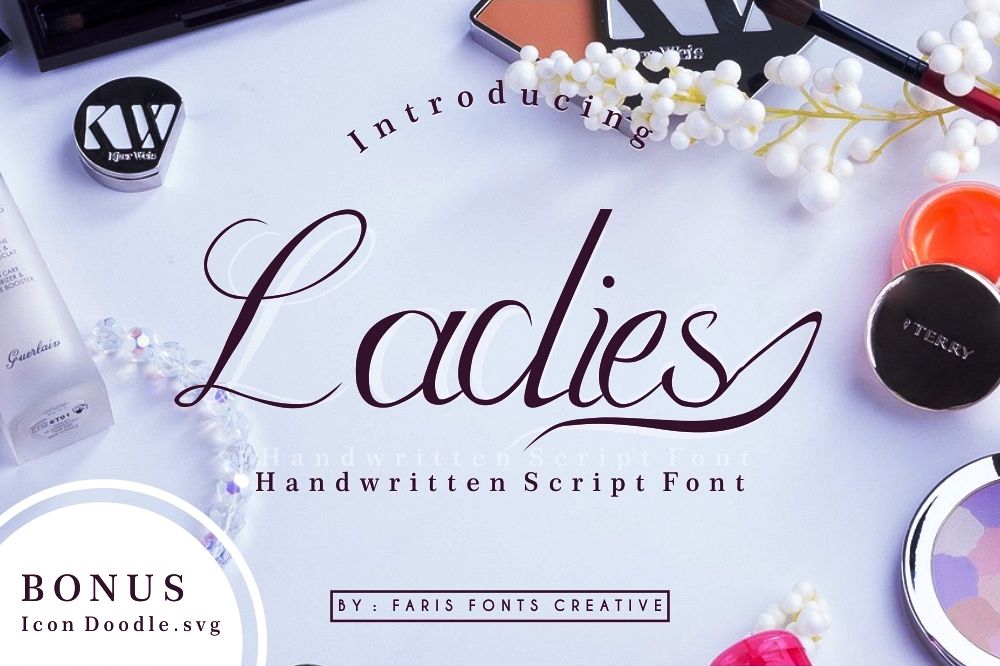
Ladies
Ladies is a
hand written font that has unic and strong style it works perfectly in all sort
of photo, design projects like fashion, wedding, branding, and more.
Ladies font
Complete with :
- Uppercase
- Lowercase
- Numerals
- Punctuation
- Swash
Also You can use Ladies for logotype, headline, instagram post, greeting cards, invitations,